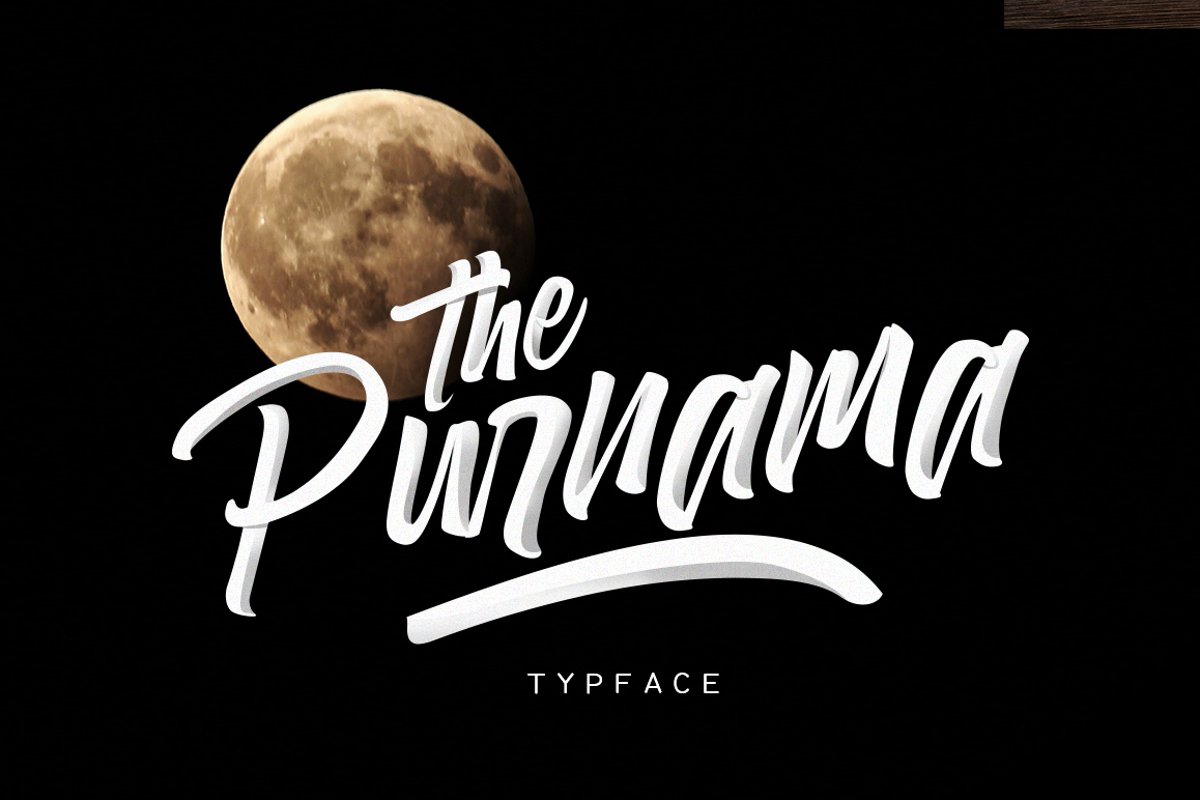
Purnama Font
Purnama
Purnama-Regular
Introducing Purnama, my 1st project hand-lettering font created from crayola and paper to digital vector.This typeface includes all uppercase and lowercase letters, numerals, punctuation, symbols and multilingual characters.Purnama Font is perfect for branding projects, homeware designs, product packaging - or simply as a stylish text overlay to any background imageFiles Included : Purnama.ttf &otf, Purnama Swash.ttfFeatures : Basic Latin A-Z and a-z, Numbers, Symbols, PUA Encode, Allternatife A-Z and a-z Ligature Multilanguage SupportIt works great for both modern and vintage style work. Feel free to give your project a fresh lettering style.Can be used for both Commercial and Personal projects. Contact me with an inbox message If you have any question.Thank you!
Purnama Font